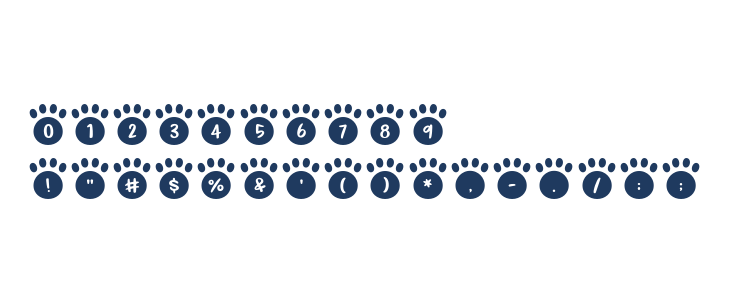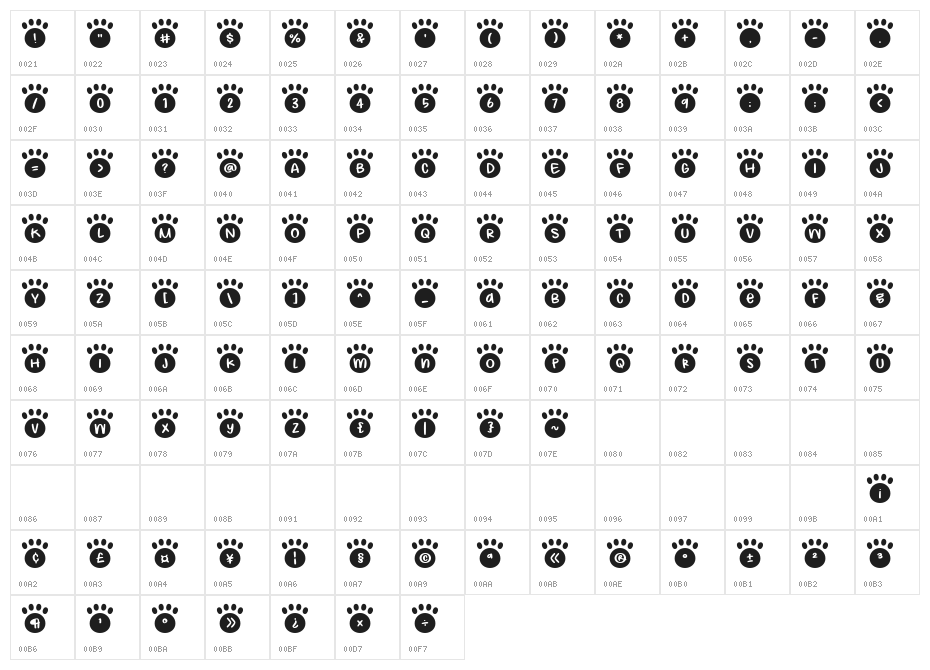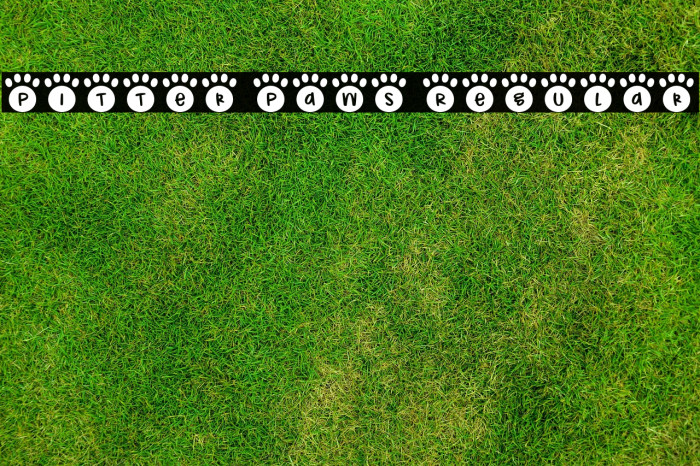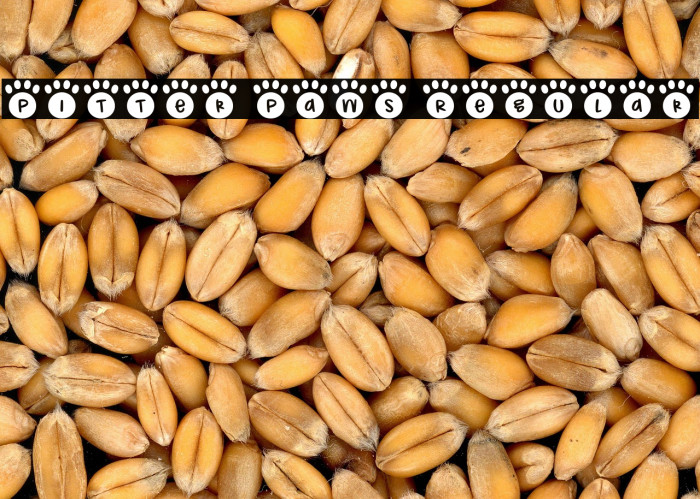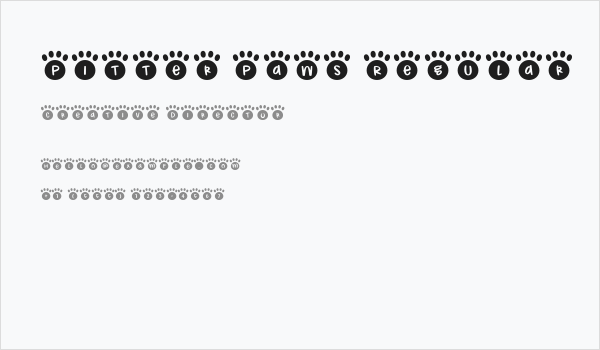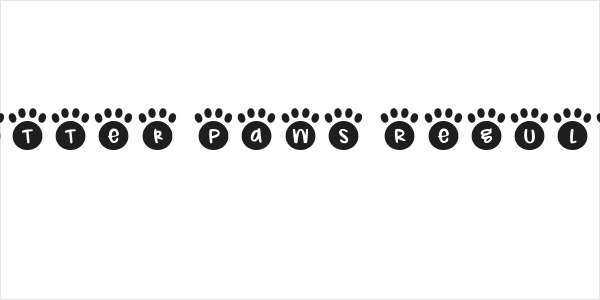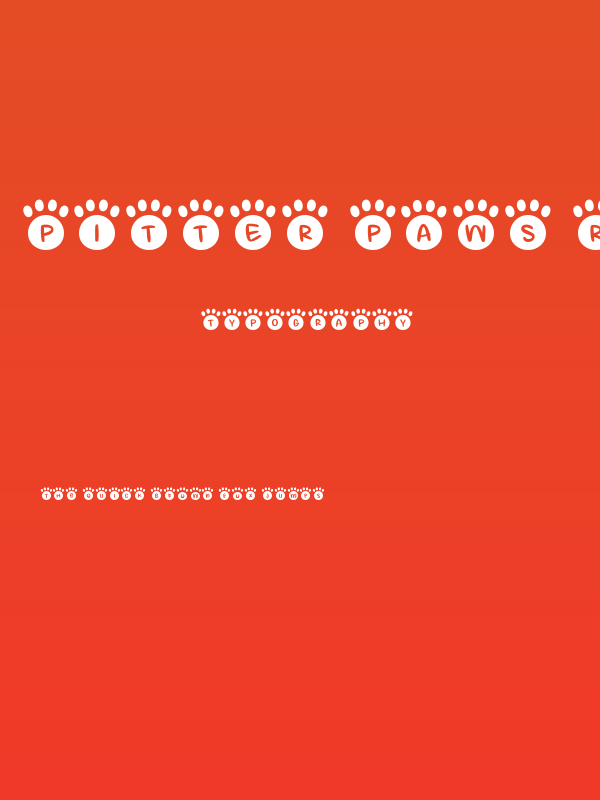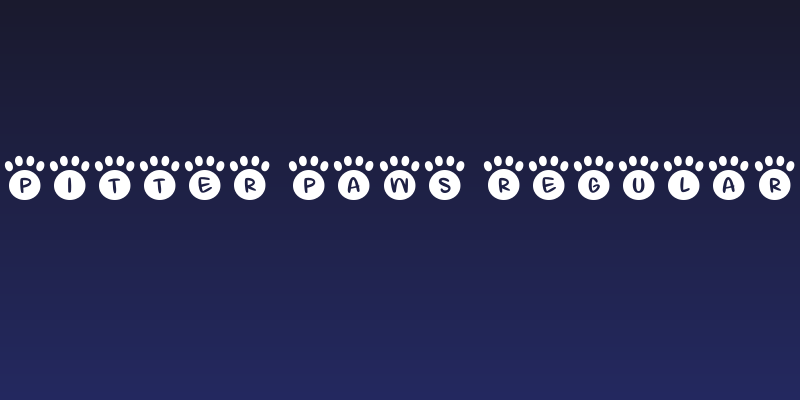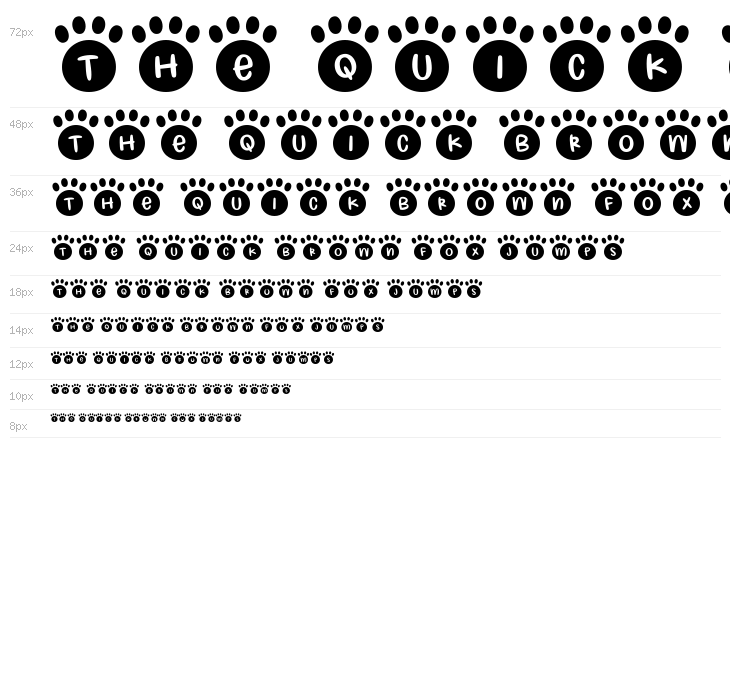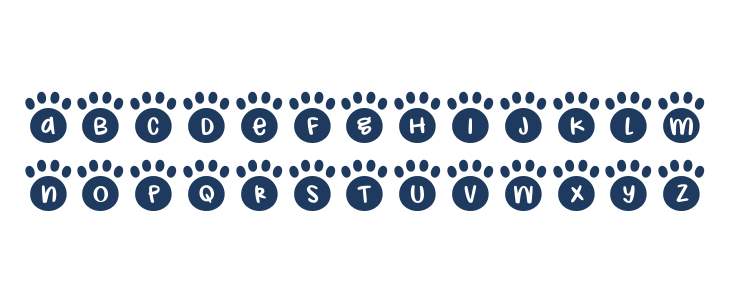
Pitter Paws Regular Font
Pitter Paws Regular Description
This playful and whimsical font features each character enclosed within a circular shape, adorned with paw prints on top, giving it a unique and charming appearance. The characters are bold and rounded, providing a friendly and approachable feel. The design is consistent across uppercase, lowercase, numbers, and special characters, maintaining the paw-themed motif throughout. This font is perfect for projects that require a fun and lighthearted touch, particularly those related to pets or children.
| Use Case | Logos, Posters, Children's materials |
| Proposed Projects | Ideal for pet-related branding, children's books, playful posters, and greeting cards. |